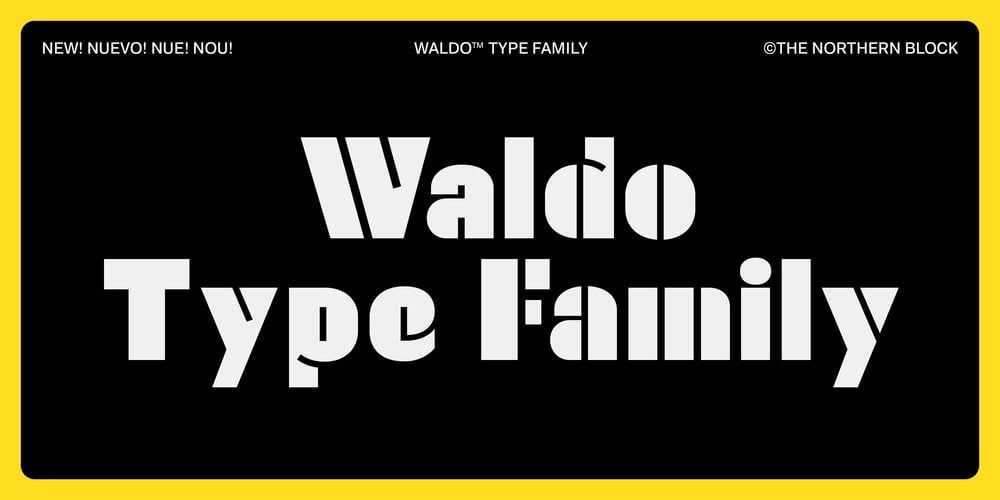
Waldo Font Family was designed by Jonathan Hill and published by The Northern Block. Waldo contains 4 styles and family package options. Waldo is a bold, stencil-focused display typeface loosely based on a 1973 science fiction movie poster for “The Battle For The Planet of The Apes”. Narrow rectangular slots cut into heavyweight forms create a stylish and energetic font ideal for apparel, books, film titles, packaging and posters.Included in the font are over 400 characters with four unique styles; Black, Stencil, Outline, and Shadow. Opentype features consist of digital numerals, tabular figures, numerators, denominators and fractions. Other features cover alternate lowercase f and r, with language support for Western, South and Central Europe.